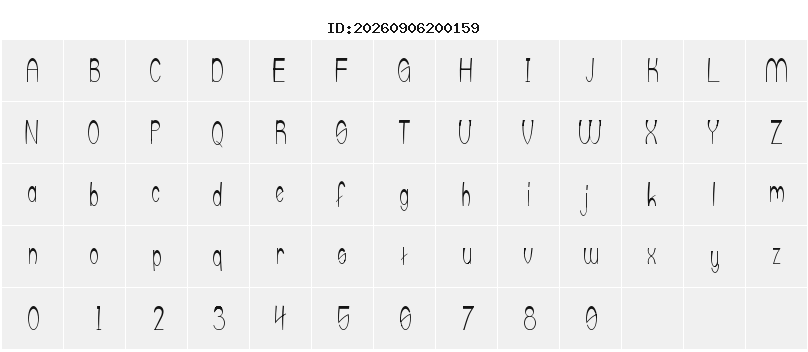
upTOP Preview
• Font Name: upTOP
• Full Font Name: upTOP
• Version: Version 1.00 January 17, 2014, initial release
About upTOP.ttf
upTOP.ttf is a modern, elegant sans-serif font designed for ultimate readability and visual harmony. Perfect for branding, headlines, web design, and print materials.